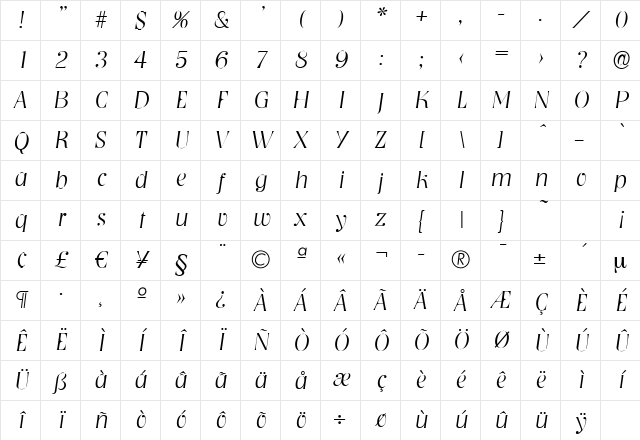
BobBecker-ExtraLight Italic
BobBecker-ExtraLight Family
BobBecker-ExtraLight Italic
Complete BobBecker-ExtraLight Italic glyph index. Displaying only characters natively supported by BobBecker-ExtraLight Italic font.
Design Context for BobBecker-ExtraLight
BobBecker-ExtraLight is a composed and adaptable typeface that performs quietly and consistently across a wide range of design contexts. The slanted form adds forward momentum and visual energy. Its slender proportions lend an understated elegance to any composition.